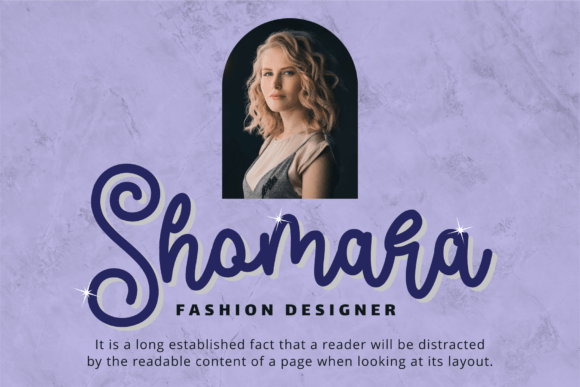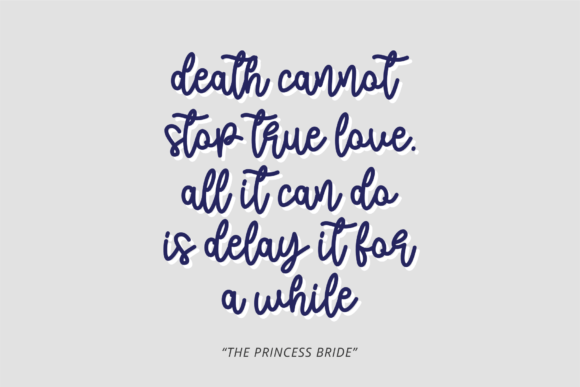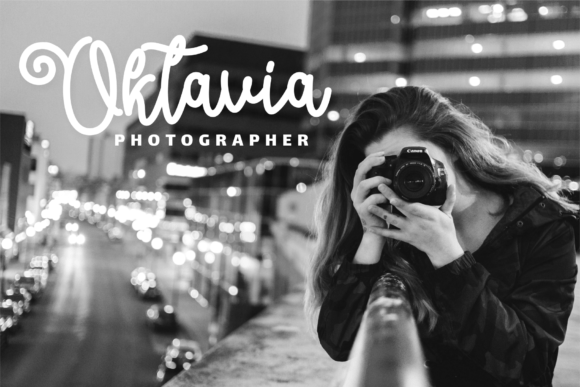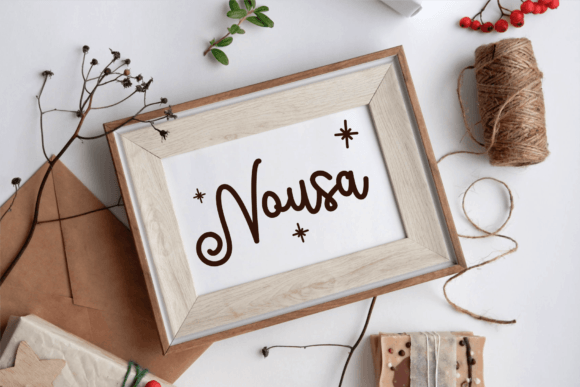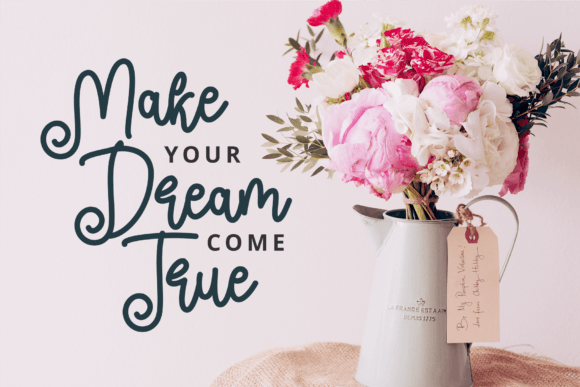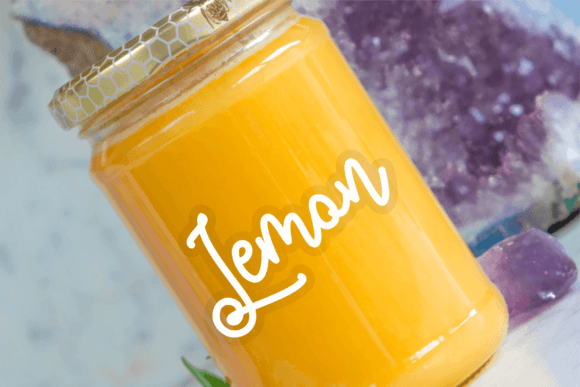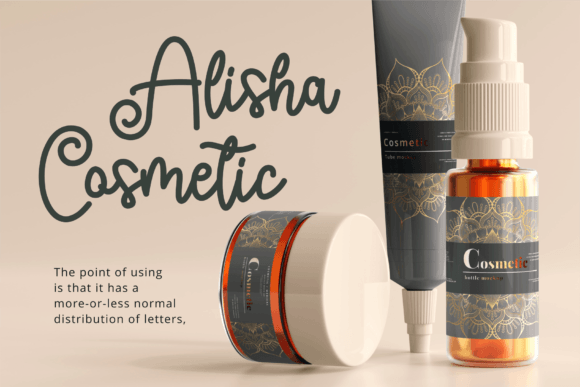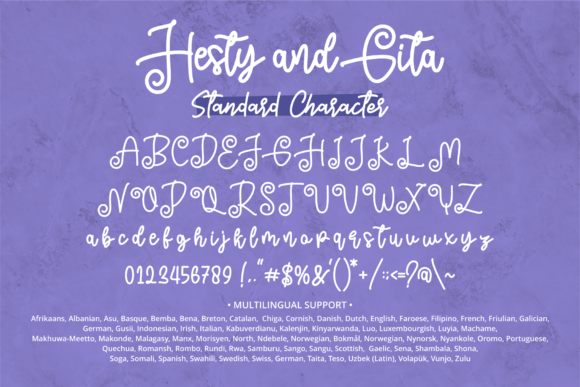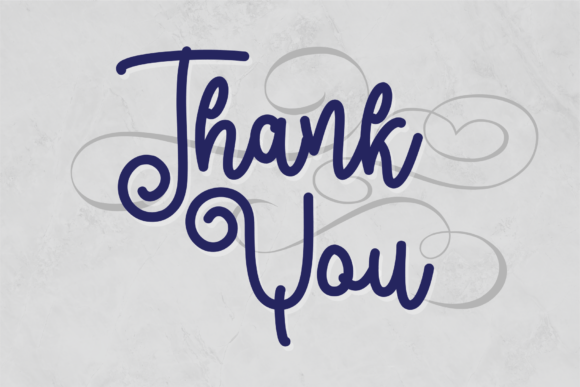
Hesty and Gita Font
About Hesty and Gita Font
“Hesty and Gita” is a delightful and elegant script font that adds a touch of simplicity and delicacy to your creative projects. Its graceful strokes and smooth curves make it a perfect choice for a variety of applications, ranging from craft projects and Christmas decor to farmhouse signs, posters, t-shirts, and more.
One of the standout features of “Hesty and Gita” is its versatility. This font effortlessly complements different design themes, enhancing the visual appeal of your creations. Whether you’re designing holiday-themed crafts, rustic farmhouse-style signs, or trendy t-shirts, “Hesty and Gita” adds a charming and stylish element to your work.
The beauty of this font lies in its simplicity. Its clean and straightforward design makes it easy to read and visually appealing, ensuring that your message or artwork is effectively communicated to your audience. Whether you’re creating personalized gifts, promotional materials, or home decor items, “Hesty and Gita” lends a touch of sophistication to your projects.
Additionally, “Hesty and Gita” offers endless possibilities for creativity. With its varied stylistic elements and letter variations, you can experiment with different looks and styles, allowing you to customize your designs according to your preferences. Whether you want a more playful or elegant appearance, this font provides you with the tools to achieve your desired aesthetic.
So, have fun exploring the myriad of options that “Hesty and Gita” offers. Let your creativity soar as you discover the endless variations and possibilities this beautiful font brings to your projects. Whether you’re a seasoned designer or someone embarking on their creative journey, “Hesty and Gita” is the perfect companion to infuse your work with simplicity, elegance, and a touch of artistic charm.